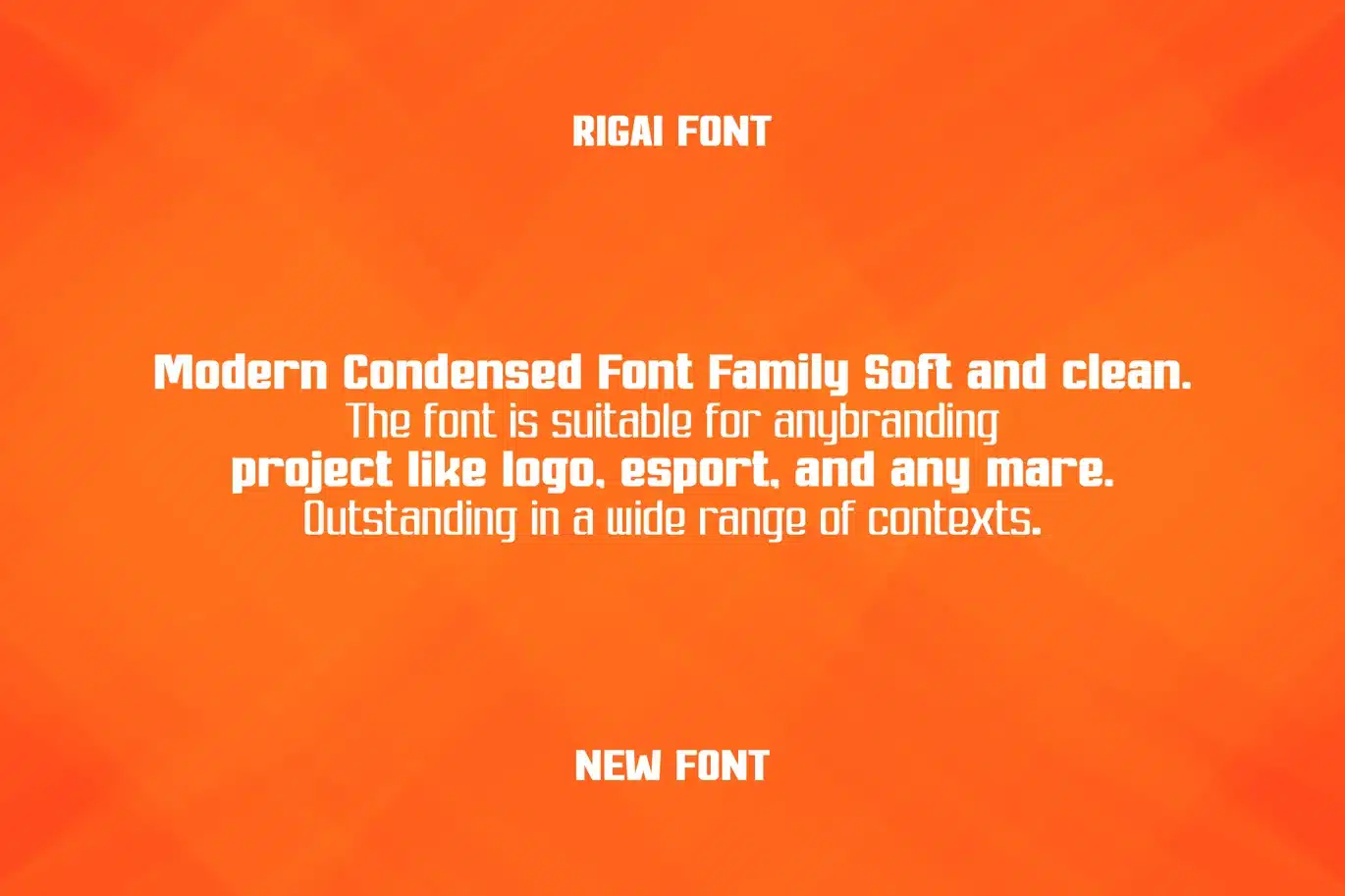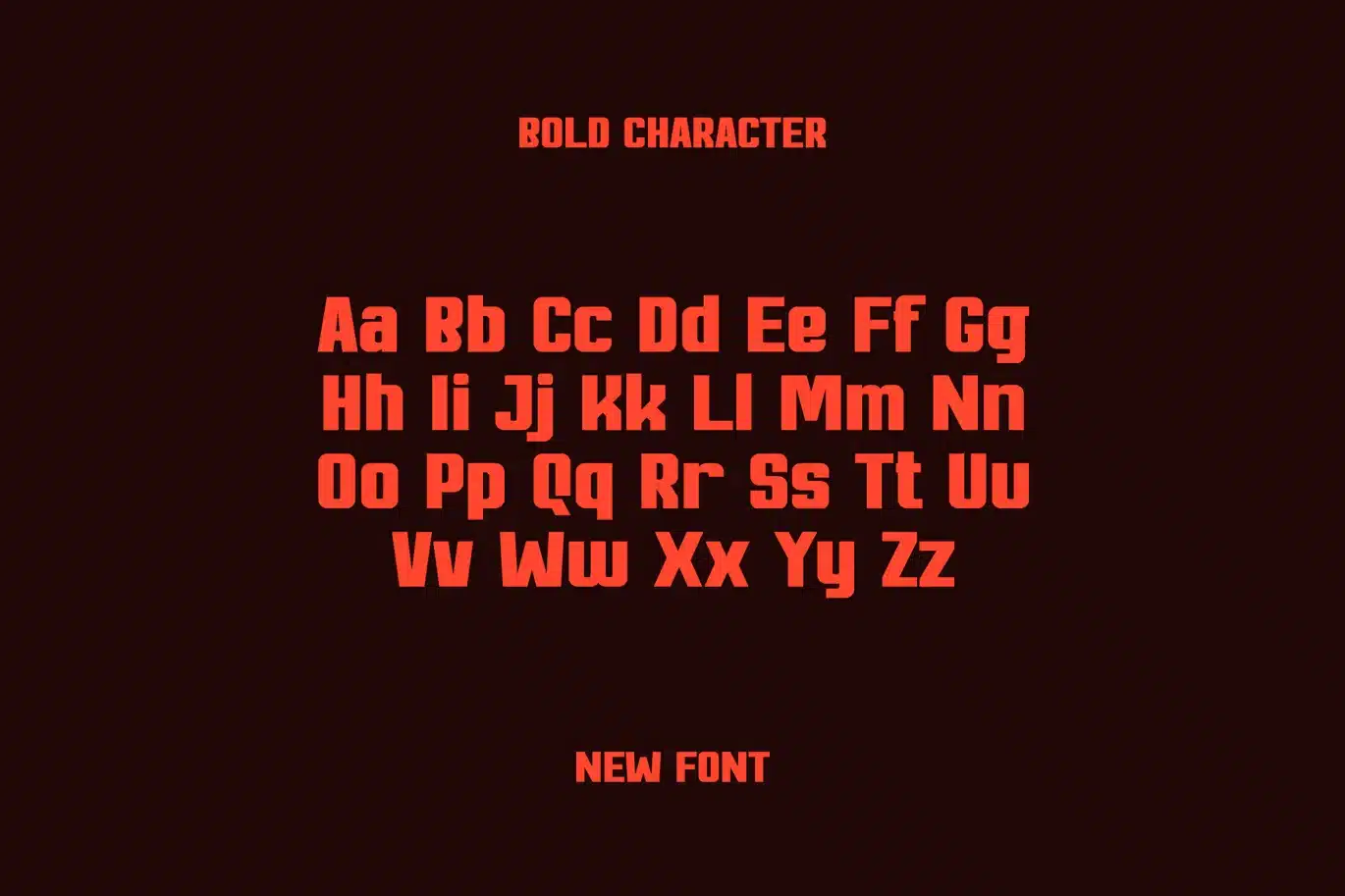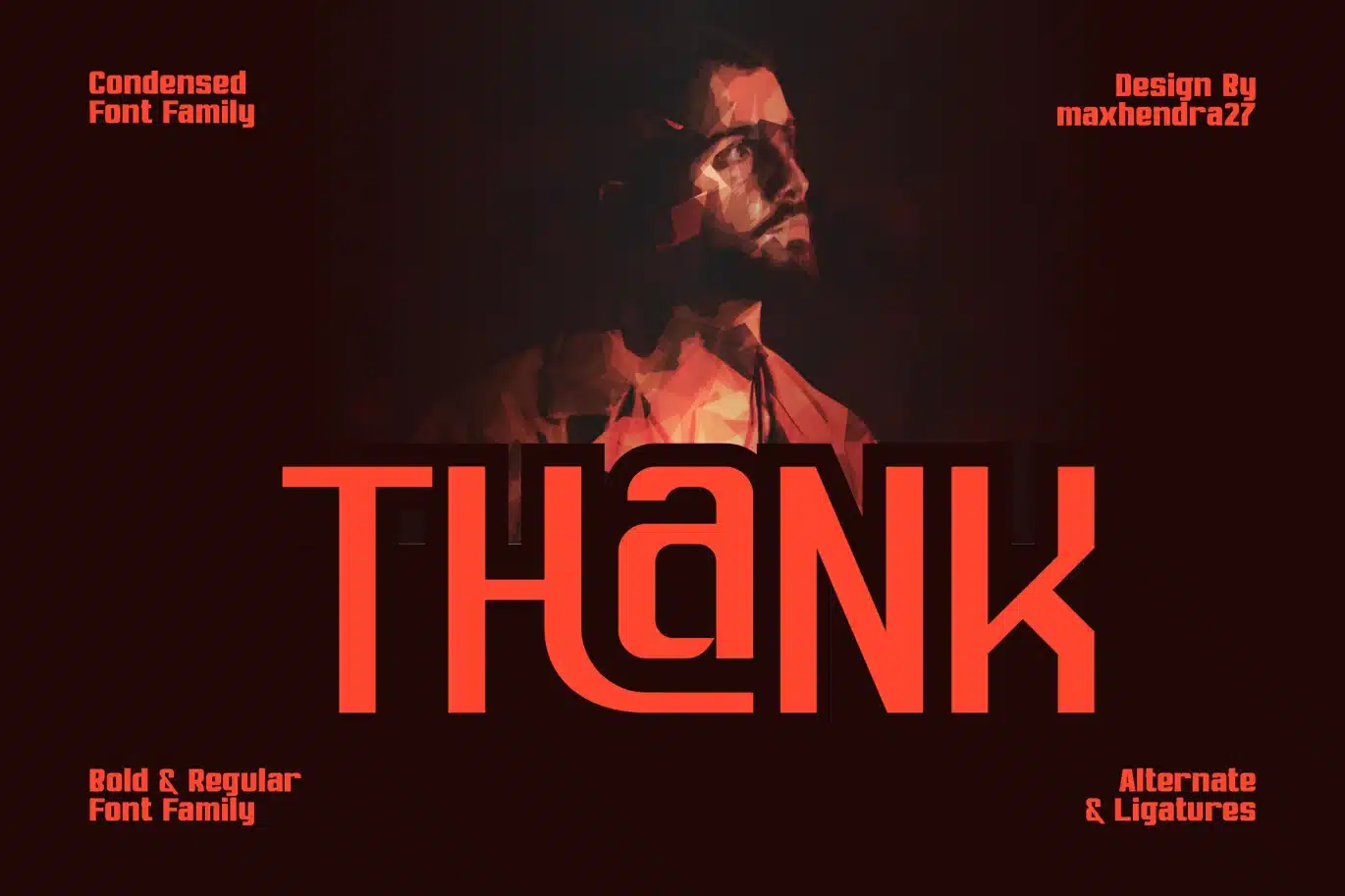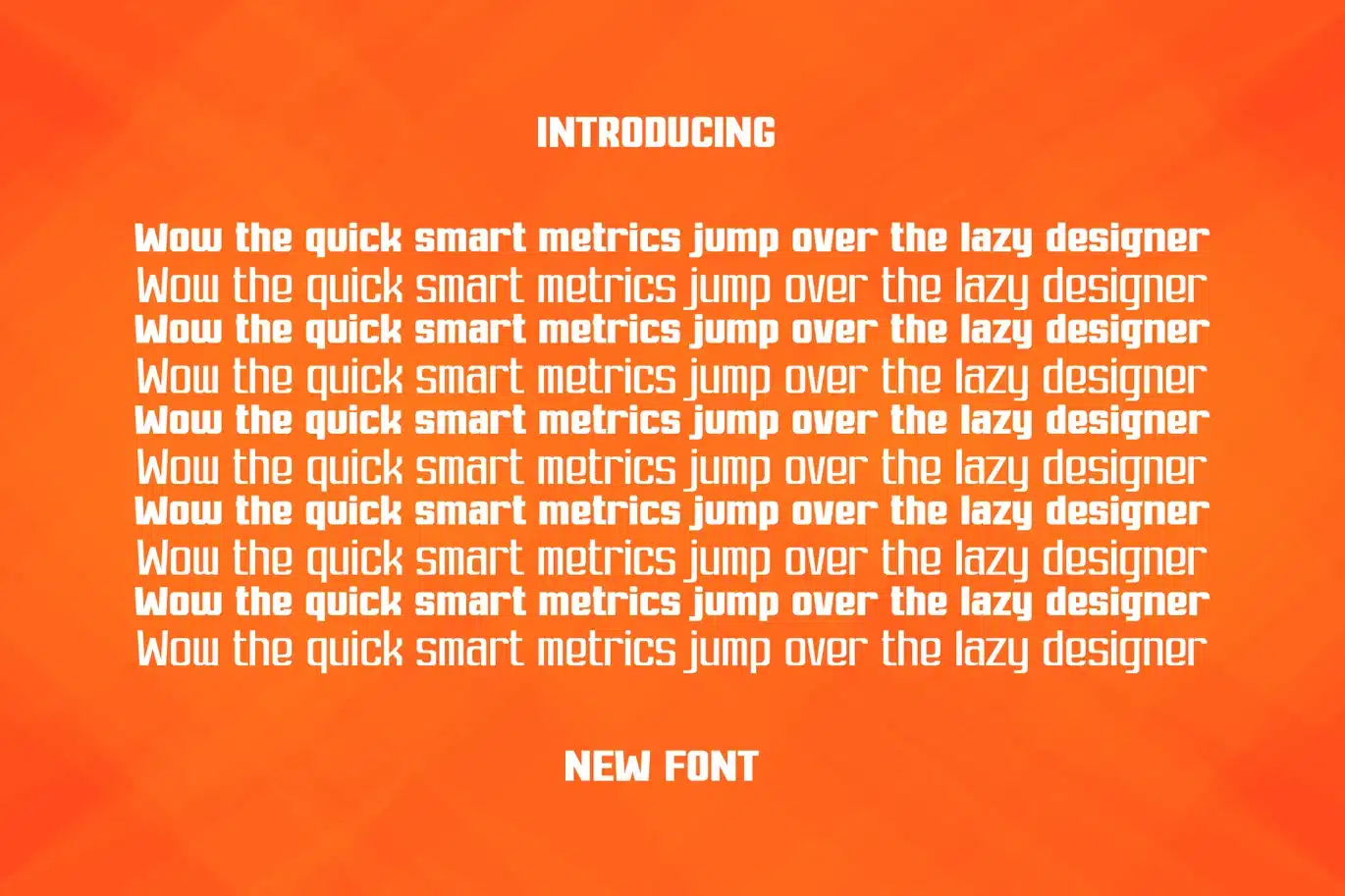
Rigai – Condensed Font Family
Rigai is a super thick typeface with more traditional letter shapes, making it perfect for creating (or recreating) the concise look of film poster production credits.
Feature :
- Uppercase Characters
- Lowercase Characters
- Bold & Regular Characters
- Alternate Characters
- Ligature Characters
- Punctuation & Numbers